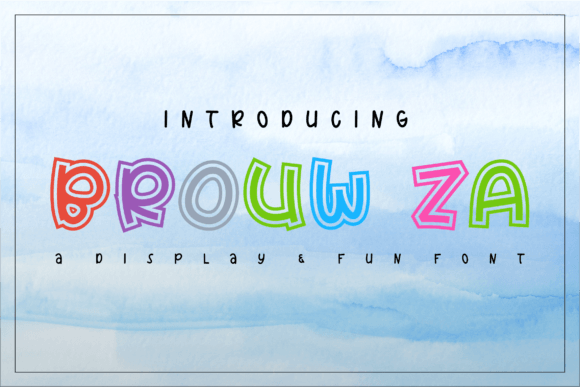
The Perfect Match for Your Next Design Project
Have you ever found yourself in a creative jam, staring at a blank canvas, wondering what will bring your design to life? For many of us, the solution lies in the perfect combination of colors, textures, and typography. And that’s where the delightful Brouw-Za Font comes in – a charming display font that embodies the essence of playfulness and authenticity.
Designed specifically with children’s activities and school projects in mind, this chunky lettered font is a game-changer for designers looking to add a touch of whimsy to their designs. With its vibrant colors and unique style, Brouw-Za Font is sure to capture the attention of your audience and leave a lasting impression. Whether you’re working on a children’s book, a poster, or a website, this font is the perfect addition to your design arsenal.
Brouw-za Font Key Features
- Font Family: Brouw-za Font is a unique, high-quality font family with a total of 6 font styles, including regular, italic, bold, bold italic, condensed, and condensed italic.
- Unique Characteristics: Brouw-za Font features a distinctive, modern design with a mix of geometric and organic elements, making it perfect for use in creative and innovative projects.
- Language Support: Brouw-za Font supports a wide range of languages, including Latin, Cyrillic, and Greek, making it suitable for use in international and multilingual projects.
Brouw-za Font Review
Overall, I’m quite impressed with the Brouw-za Font. Here are some of its strengths:
- ✨ Unique aesthetic: Brouw-za Font has a distinct, quirky feel that’s perfect for brands that want to stand out.
- ✨ Versatile: The font comes in a range of weights, from light to bold, making it suitable for various design applications.
- ✨ Legible: Despite its unconventional appearance, Brouw-za Font is surprisingly easy to read, even at small sizes.
- ⚠️ Limited language support: Brouw-za Font may not be suitable for languages that require more complex typography, such as Arabic or Chinese.
- ⚠️ Limited font sizes: While the font is legible, it may not be the best choice for very small or very large text sizes.
- ⚠️ Limited customization options: Some designers may find the font’s unique aesthetic limiting, as it may not be easily modified to fit specific design requirements.
Overall, I think Brouw-za Font is a great choice for designers who want to add some personality to their designs. While it may not be suitable for every project, it’s a versatile and unique font that can add a lot of character to a design.
Brouw-za Font is perfect for:
1. Food and beverage branding
2. Creative and artistic projects
3. Headings and titles in documents and presentations
4. Social media graphics and ads
5. Any project that requires a unique and eye-catching font.
What is the character set of the Brouw-za Font?
The Brouw-za Font includes a comprehensive character set that supports most languages, including Latin, Cyrillic, and Greek scripts. The font also includes a range of punctuation marks, symbols, and special characters. For specific information on the character set, please refer to the font’s documentation or contact the font developer.